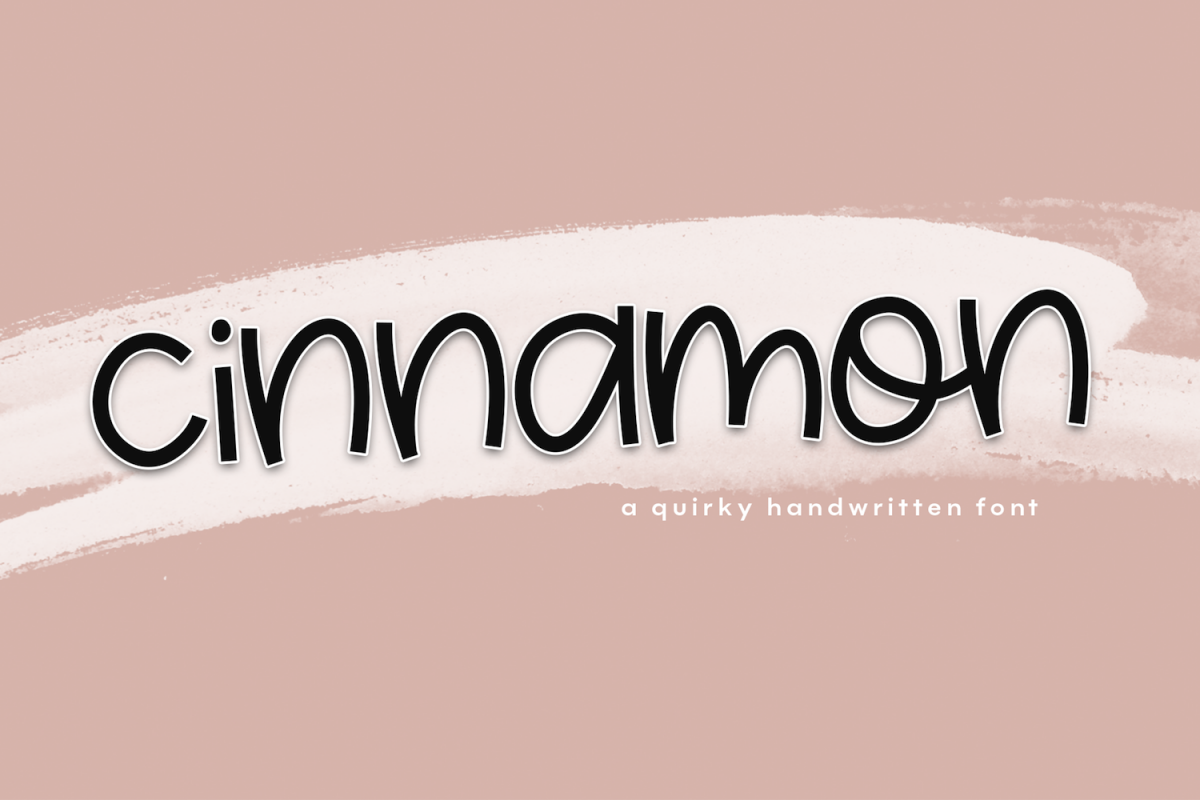
Cinnamon - A Fun & Quirky Font
Cinnamon
Cinnamon is a fun and quirky font.
This font is perfect for cricut projects, svg designs, quotes, logos, shirts, vinyl, stickers and more!